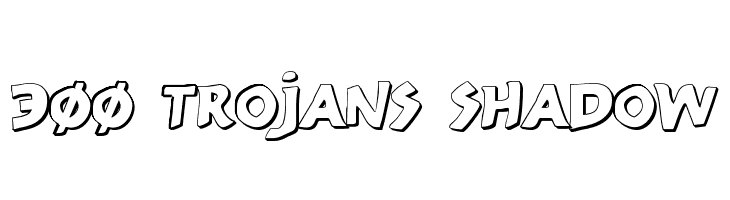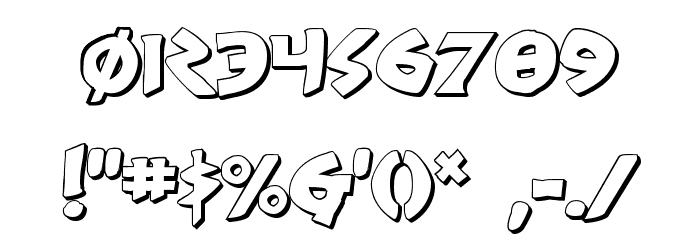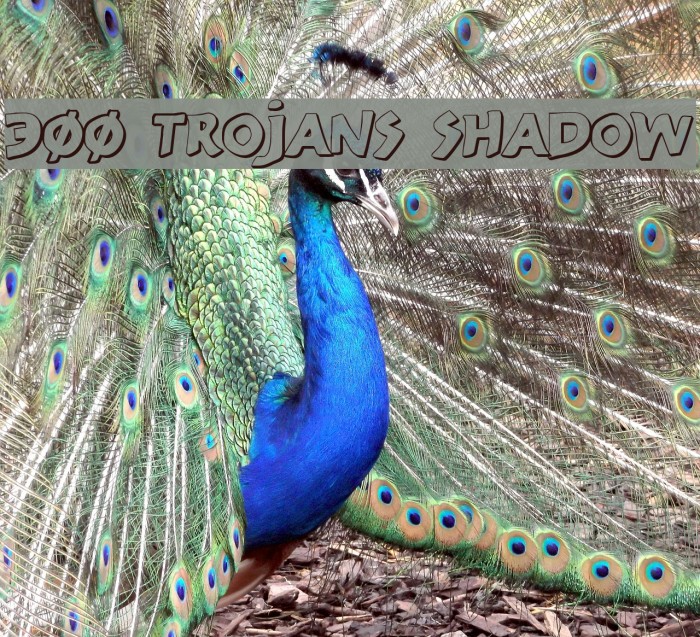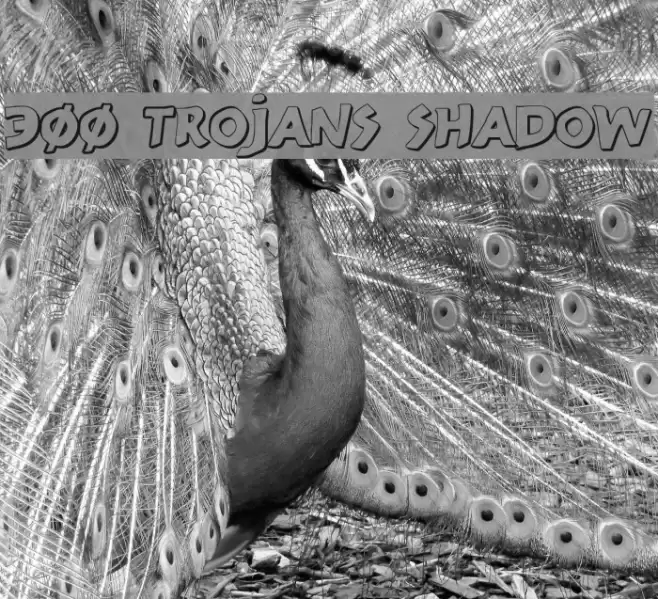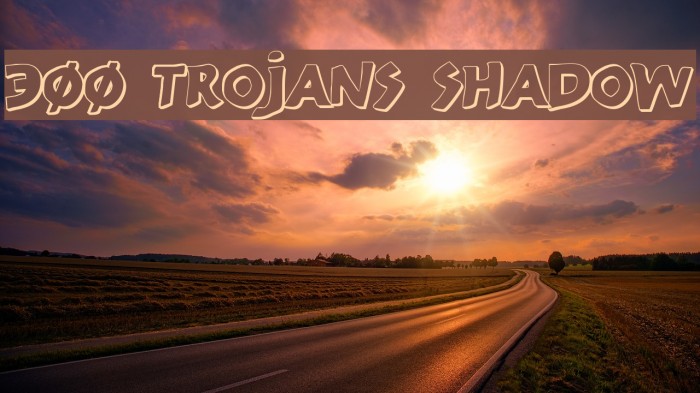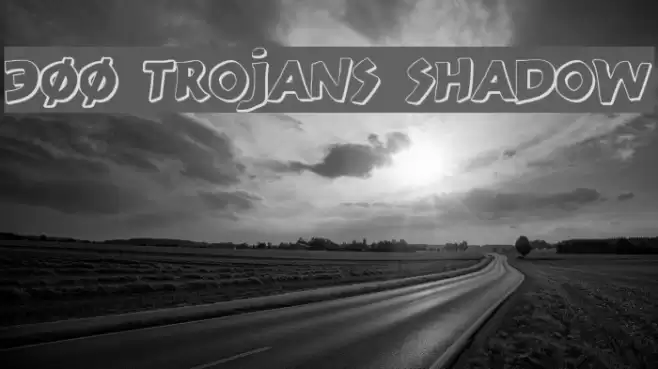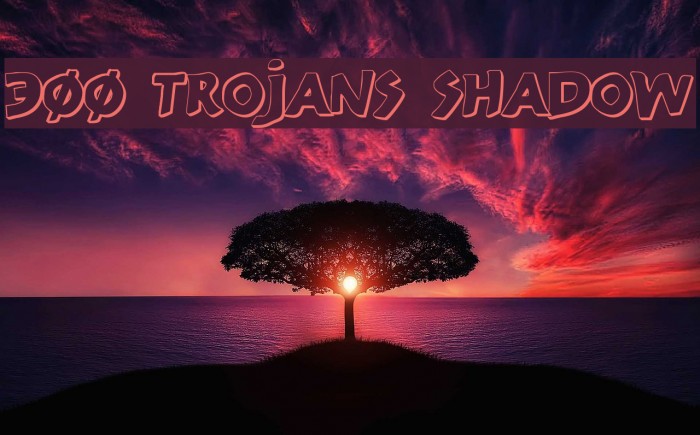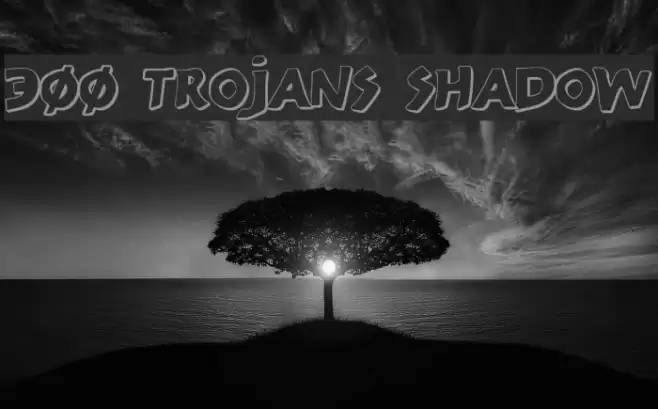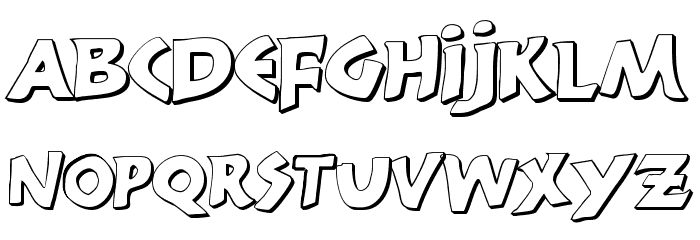
300 Trojans Shadow Font
300 Trojans Shadow Description
This font features a bold and dynamic style with a shadow effect that gives each character a three-dimensional appearance. The letters are angular and slightly slanted, adding a sense of movement and energy. The uppercase and lowercase characters maintain a consistent design, with sharp edges and a playful, cartoonish vibe. The numbers and special characters follow the same aesthetic, making the font cohesive and visually striking. The shadow effect enhances the depth and makes the text stand out, suitable for eye-catching designs.
| Proposed Projects | Ideal for comic book titles, posters, video game graphics, and any project needing a bold, playful touch. |